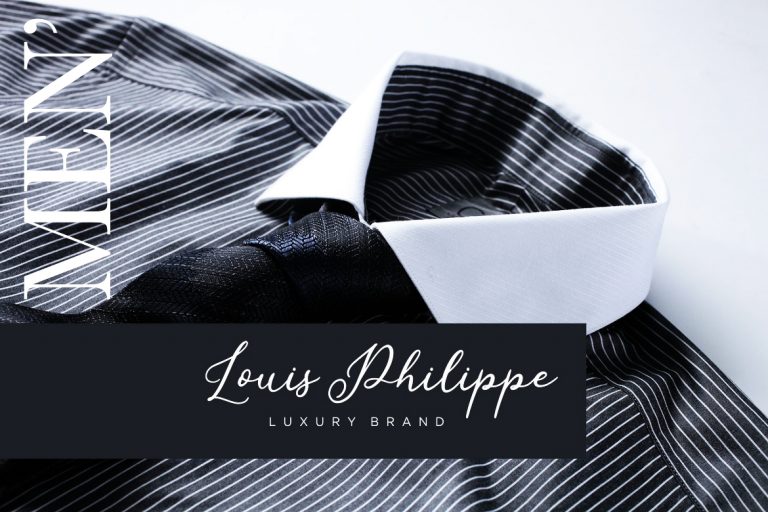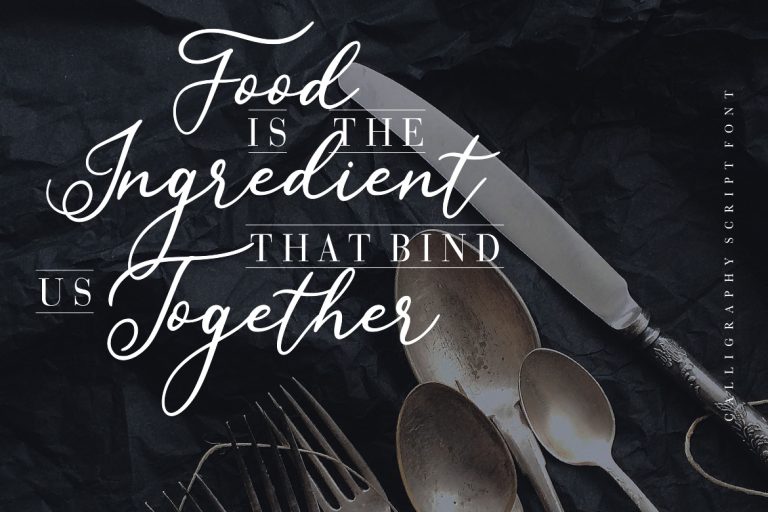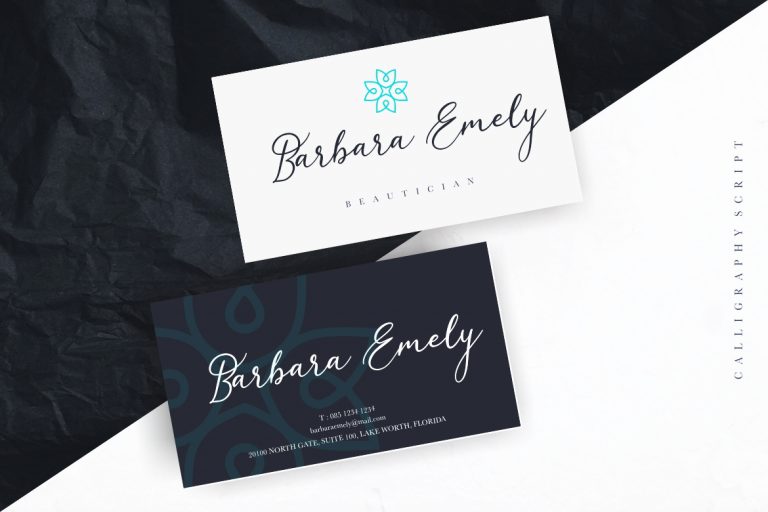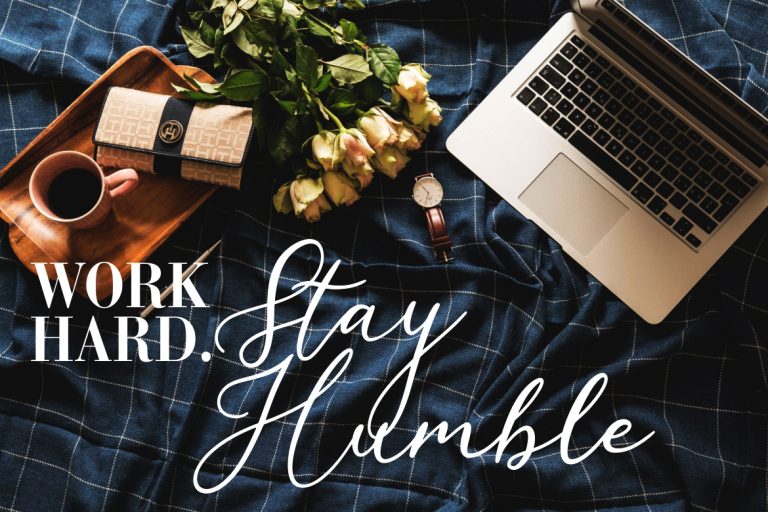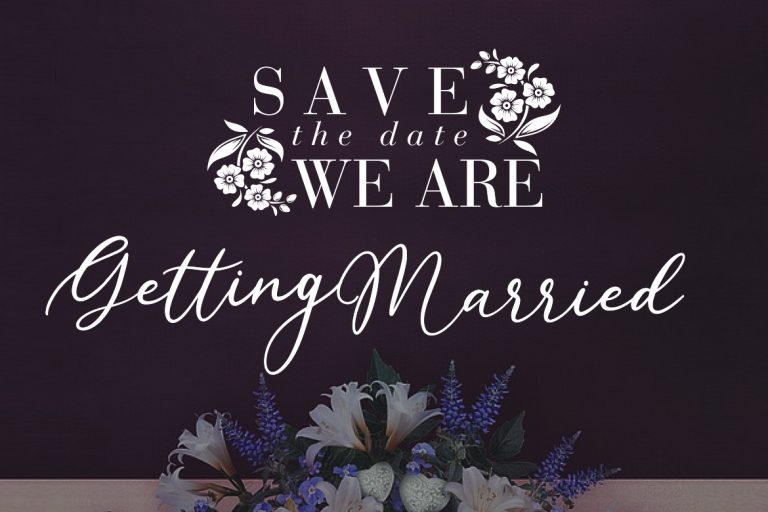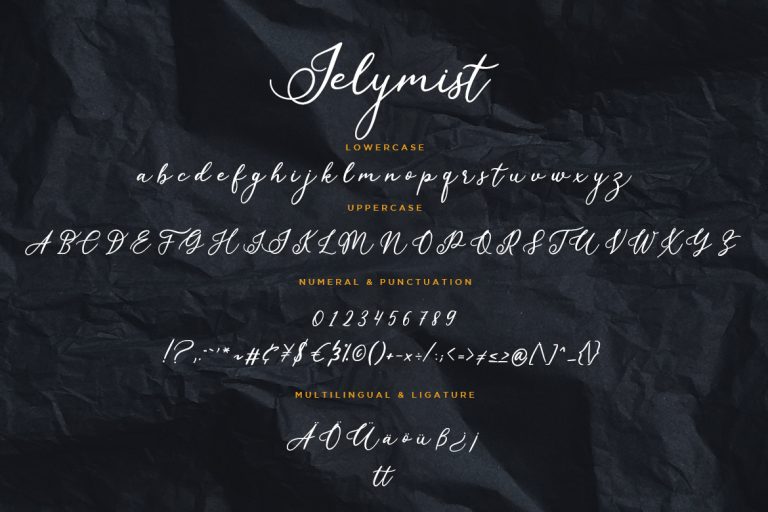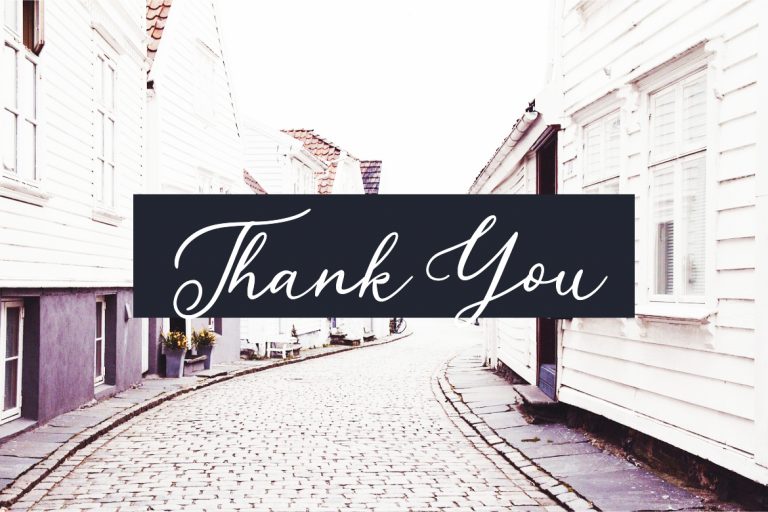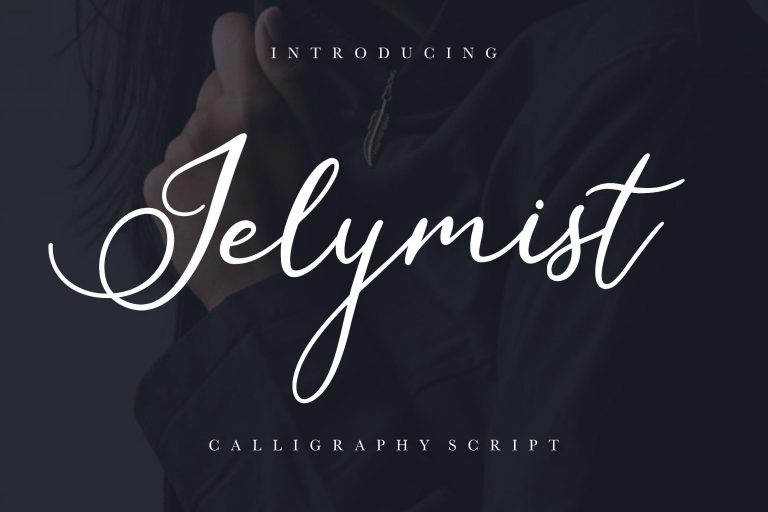
Jelymist Calligraphy is a calligraphy font script modern with elegant and classy looks.
Jelymist Calligraphy is perfect for branding projects, logo, wedding designs, social media posts, advertisements, product packaging, product designs, label, photography, watermark, invitation, stationery and any projects that need handwriting taste.
• Standard glyphs
• Ligature
• Fonts include multilingual support for; ä ö ü Ä Ö Ü ß ¿ ¡
Jelymist Calligraphy Script